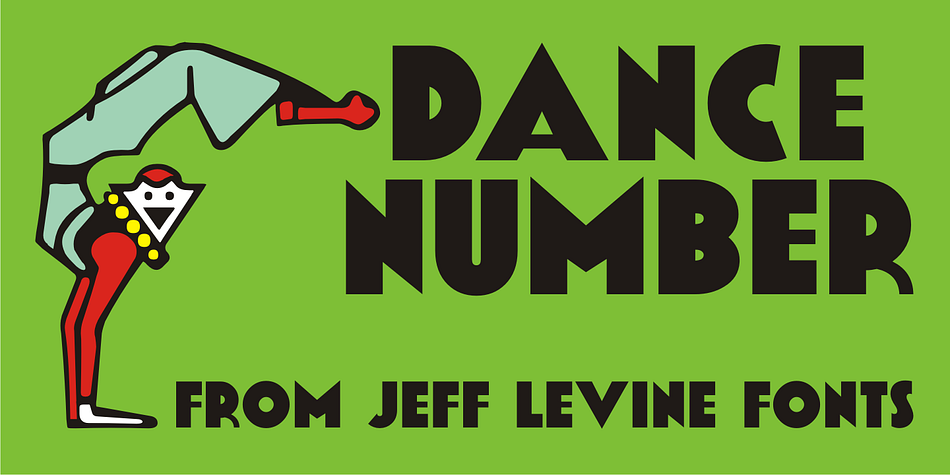
Dance Number JNL is a display sans font published by Jeff Levine Fonts.
Vintage sheet music for the song “Just Once for All Time” (from the United Artists release “Congress Dances”) provided the bold sans that served as the model for Dance Number JNL.
This 1932 film was the English language version of the German comedy “Der Kongreß tanzt.” The movie’s plot is based around the Congress of Vienna. There, an Austrian commoner is mistakenly thought to be the Tsar of Russia.